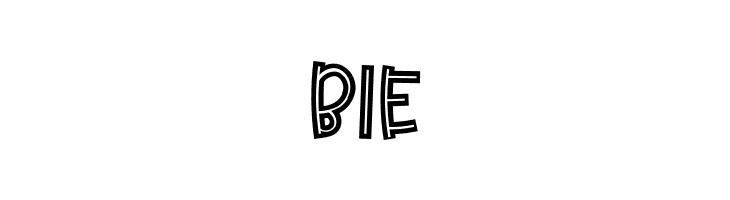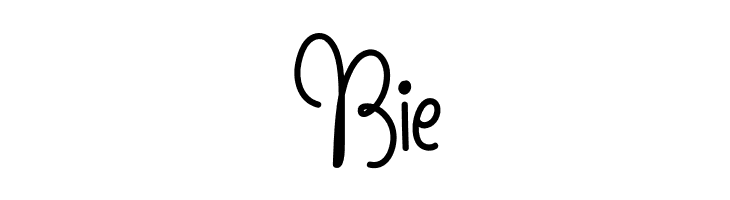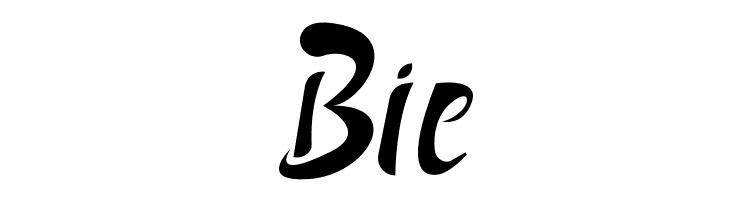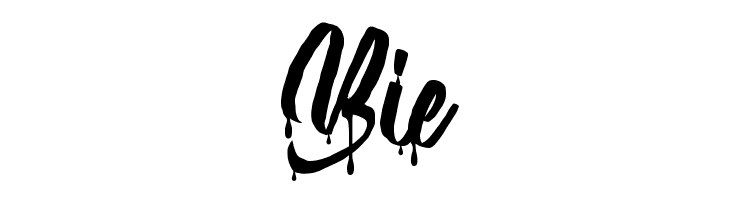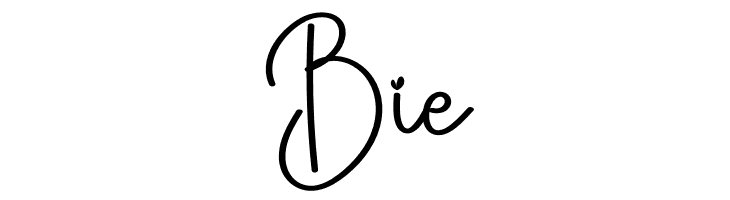
A bold, graffiti-inspired script font with a dripping effect.
A playful, whimsical script font with flowing, interconnected letters.
A bold, playful script font with interconnected, flowing strokes.
A delicate, elegant script font with thin, hairline strokes and fluid connections.
A playful, handwritten font with a modern, whimsical style.
A playful, hand-drawn font with bold, uneven strokes and a whimsical style.
A bold, dynamic script font with flowing, cursive letterforms.
Casual handwritten script with smooth, rounded strokes.
A playful, handwritten font with rounded edges and a casual style.
A fluid and elegant script font with graceful curves and a handwritten feel.